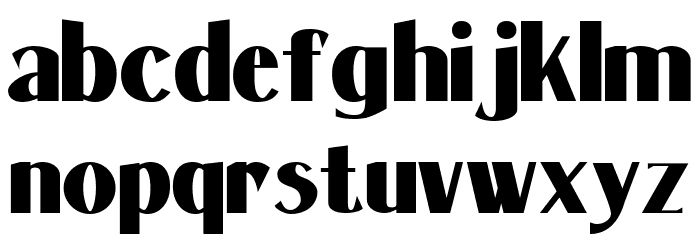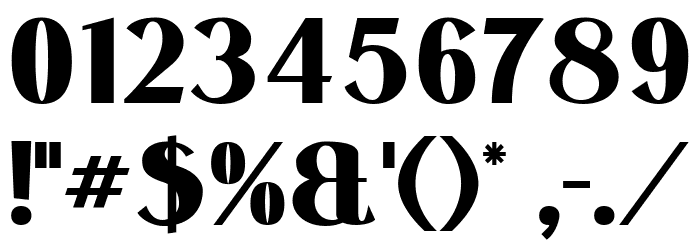
Massenet XBold Bold Font
This font exhibits a bold and striking presence, characterized by its thick strokes and high contrast between thick and thin lines. The uppercase letters are particularly wide, with some characters featuring unique serifs that add a touch of flair. The lowercase letters maintain a consistent weight, ensuring readability while still offering a distinctive style. Numbers are bold and clear, making them suitable for impactful displays. Special characters are designed with the same boldness, ensuring they stand out in any context.
A bold, high-contrast font with unique serifs and wide uppercase letters.